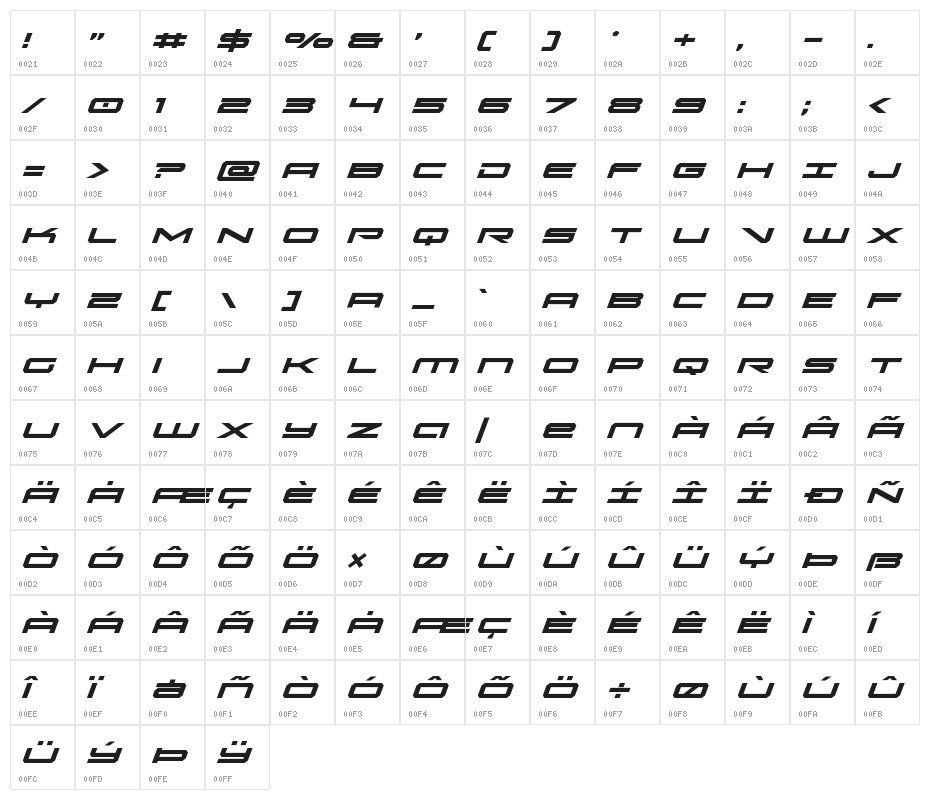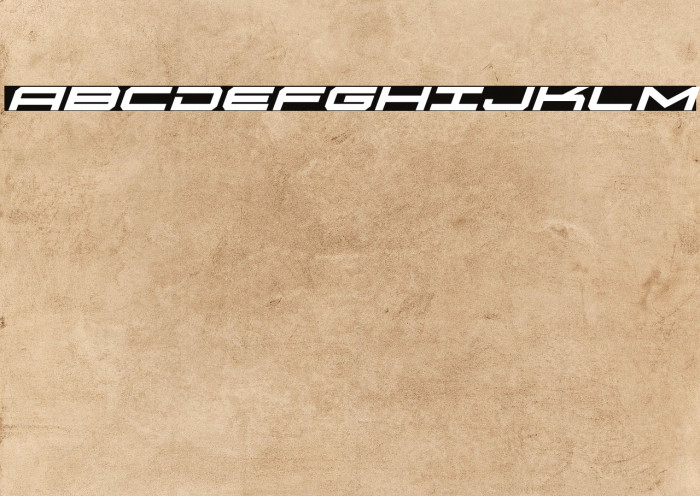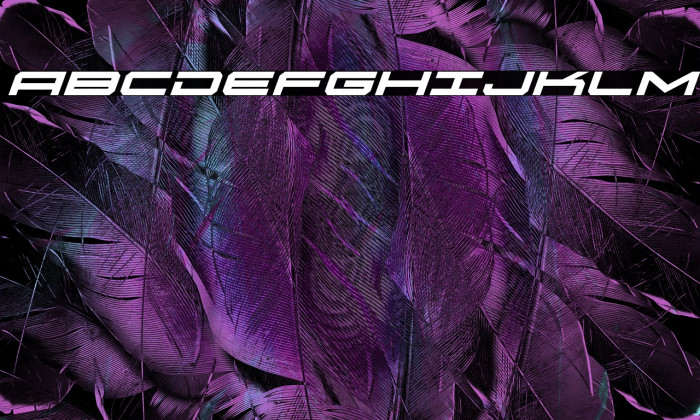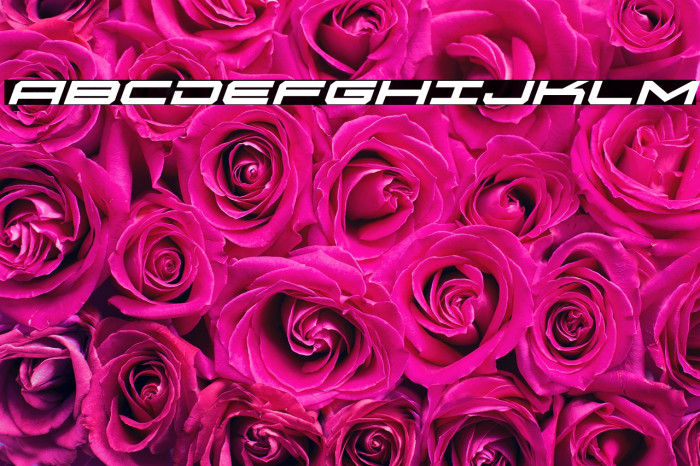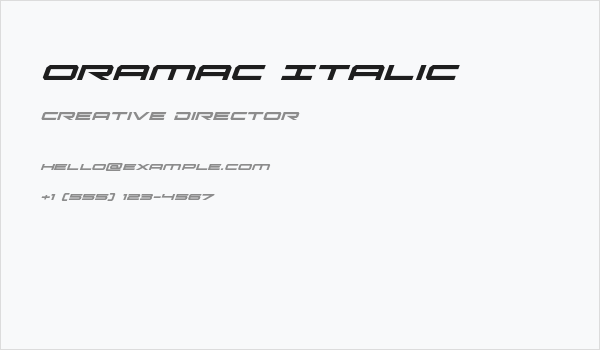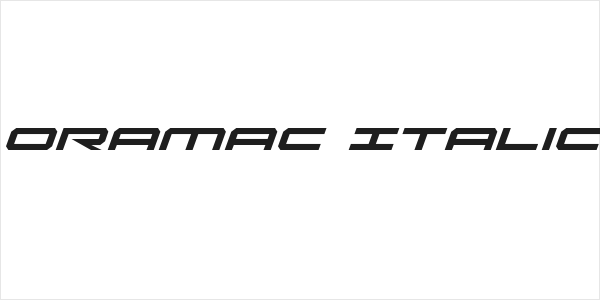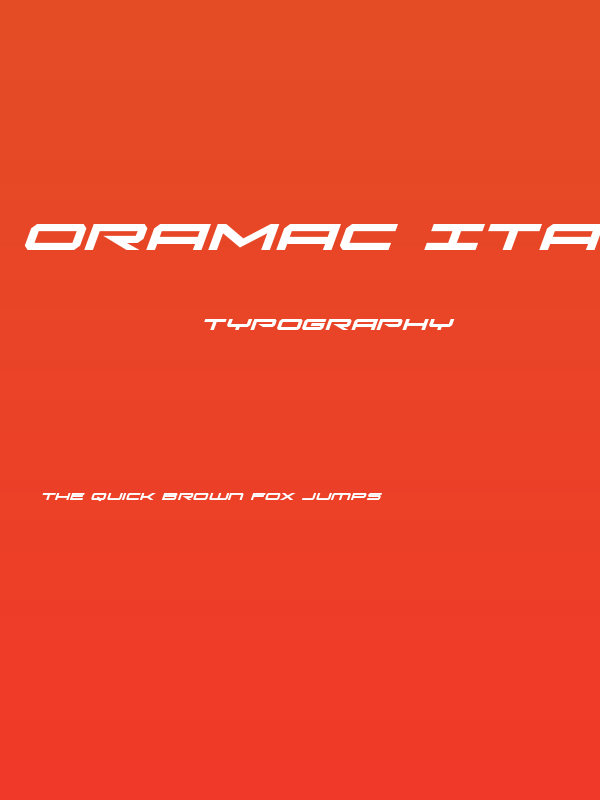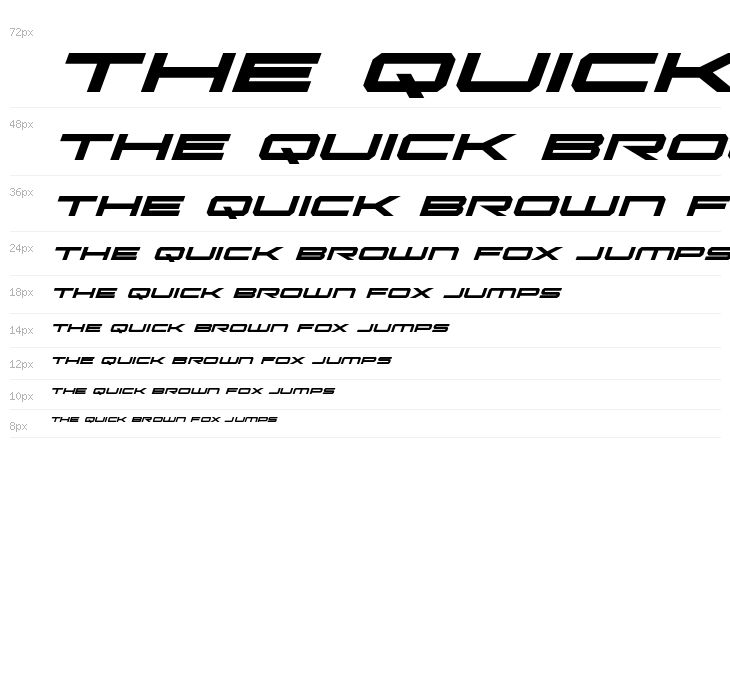
Oramac Italic Font
Oramac Italic Description
This font features a sleek, modern design with a distinctly italicized style. The characters are slightly slanted, giving a sense of motion and dynamism. The strokes are consistent in width, providing a uniform appearance across all characters. The angular cuts and sharp edges contribute to a futuristic and tech-inspired aesthetic. The font maintains a balanced proportion, ensuring readability while still offering a unique visual appeal. It is well-suited for projects that require a contemporary and innovative look.
| Proposed Projects | Ideal for tech branding, futuristic posters, video game titles, and modern website headers. |